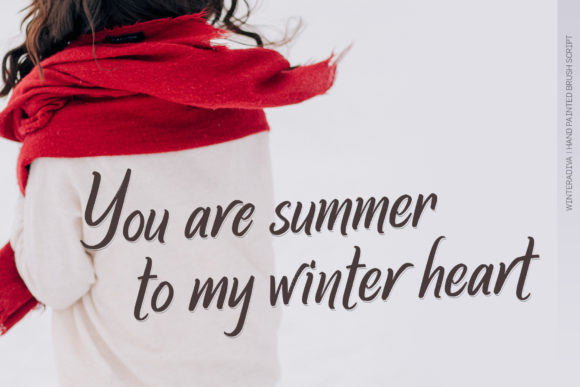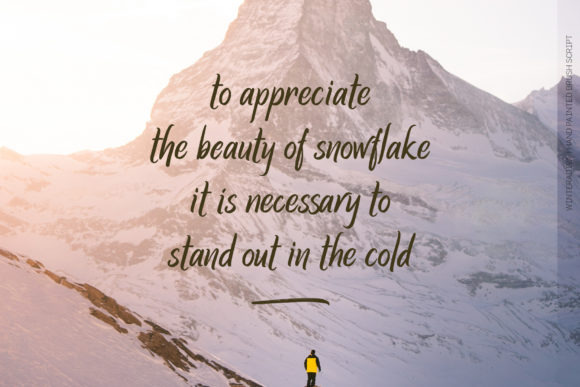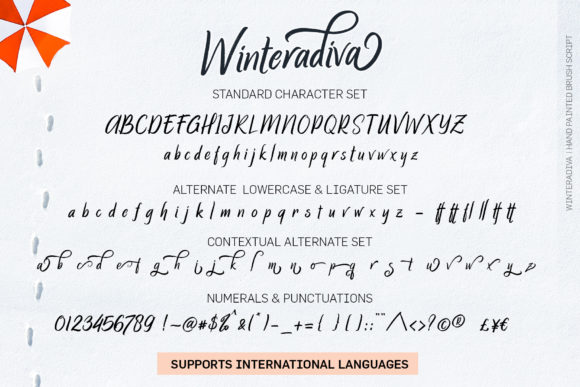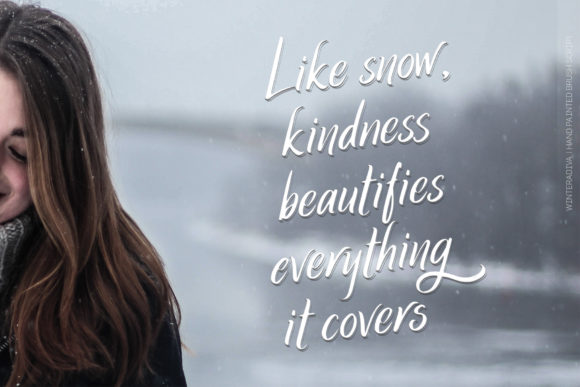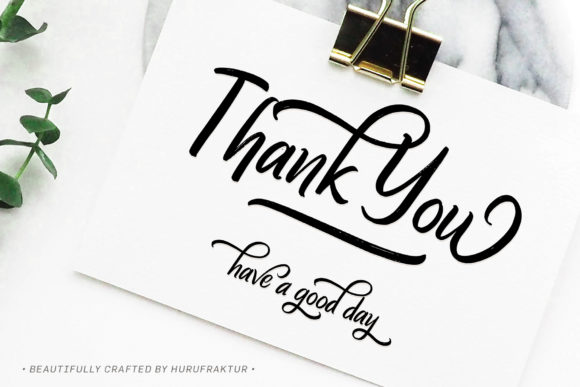
Winteradiva Font
About Winteradiva Font
Winteradiva celebrates the coldest time of the year. This unique script will easily take any design idea to the next level.